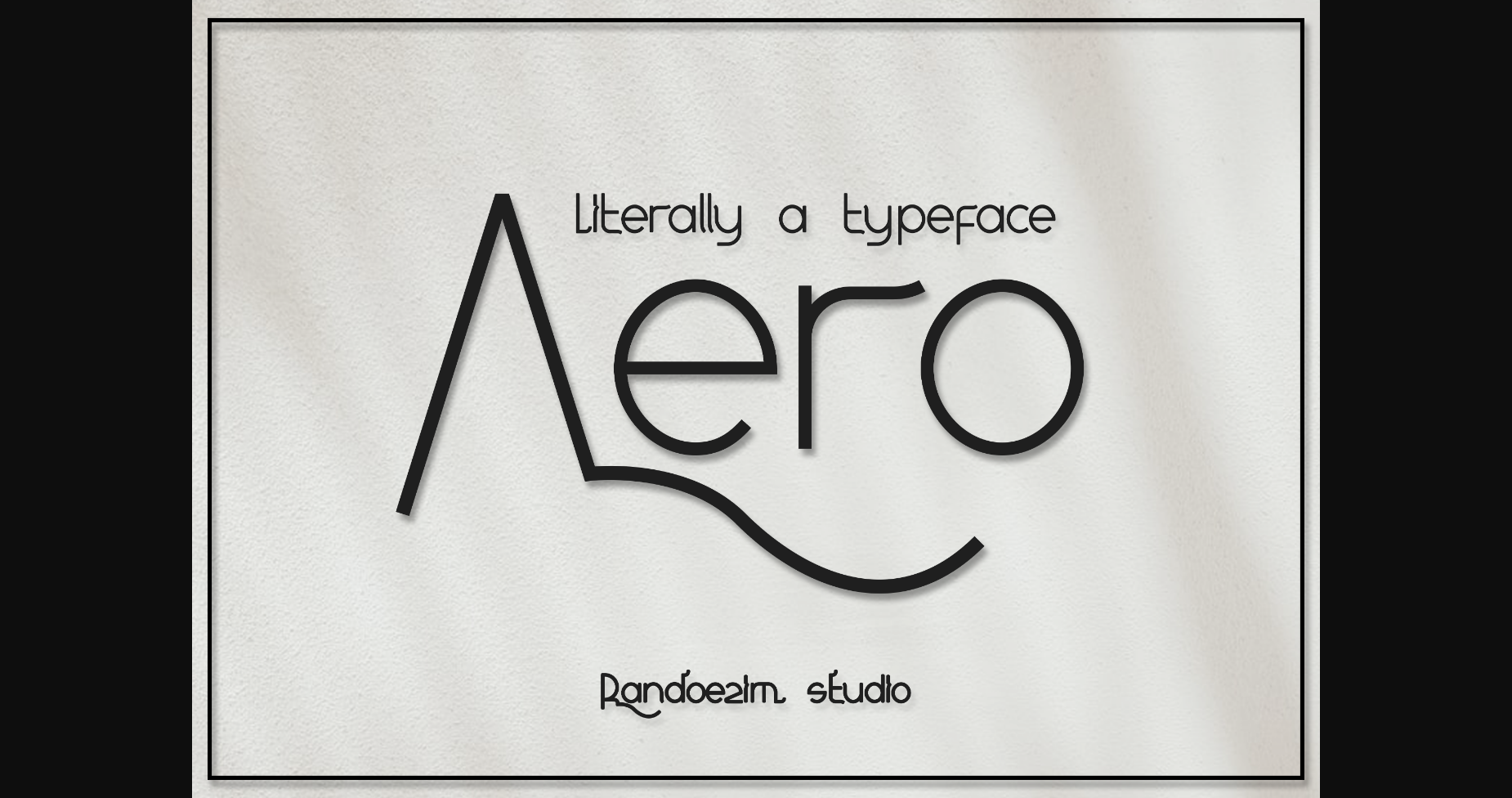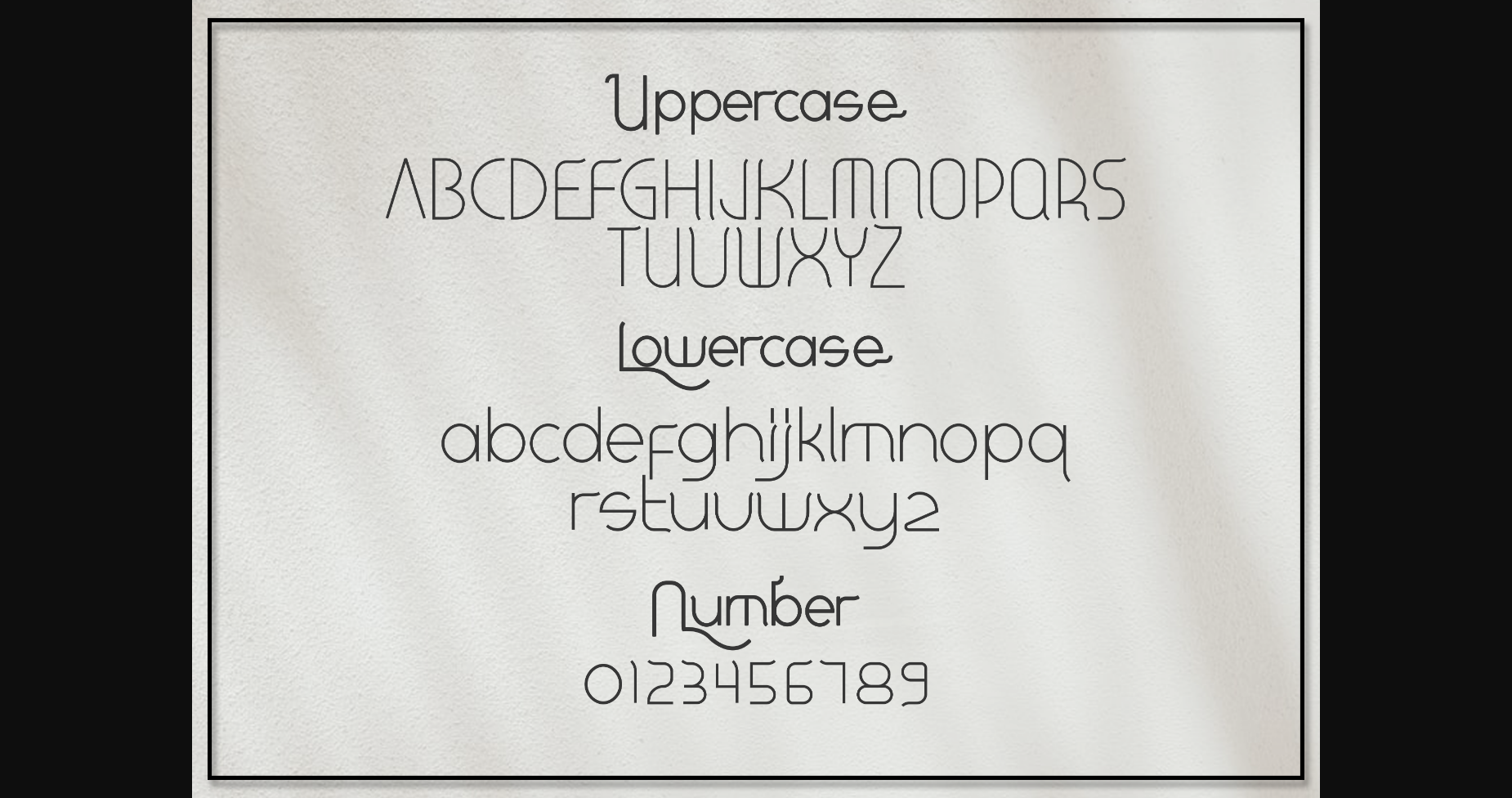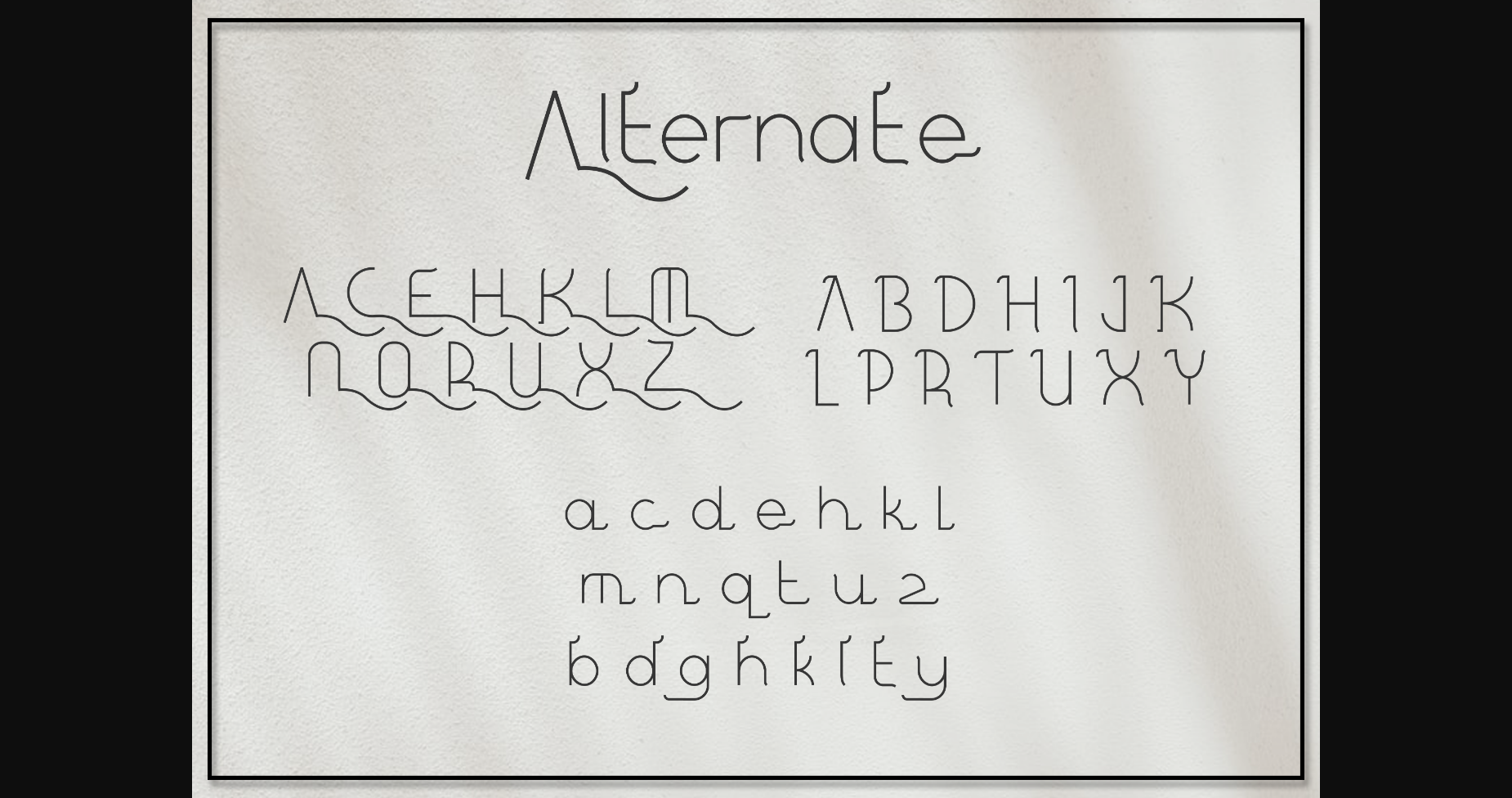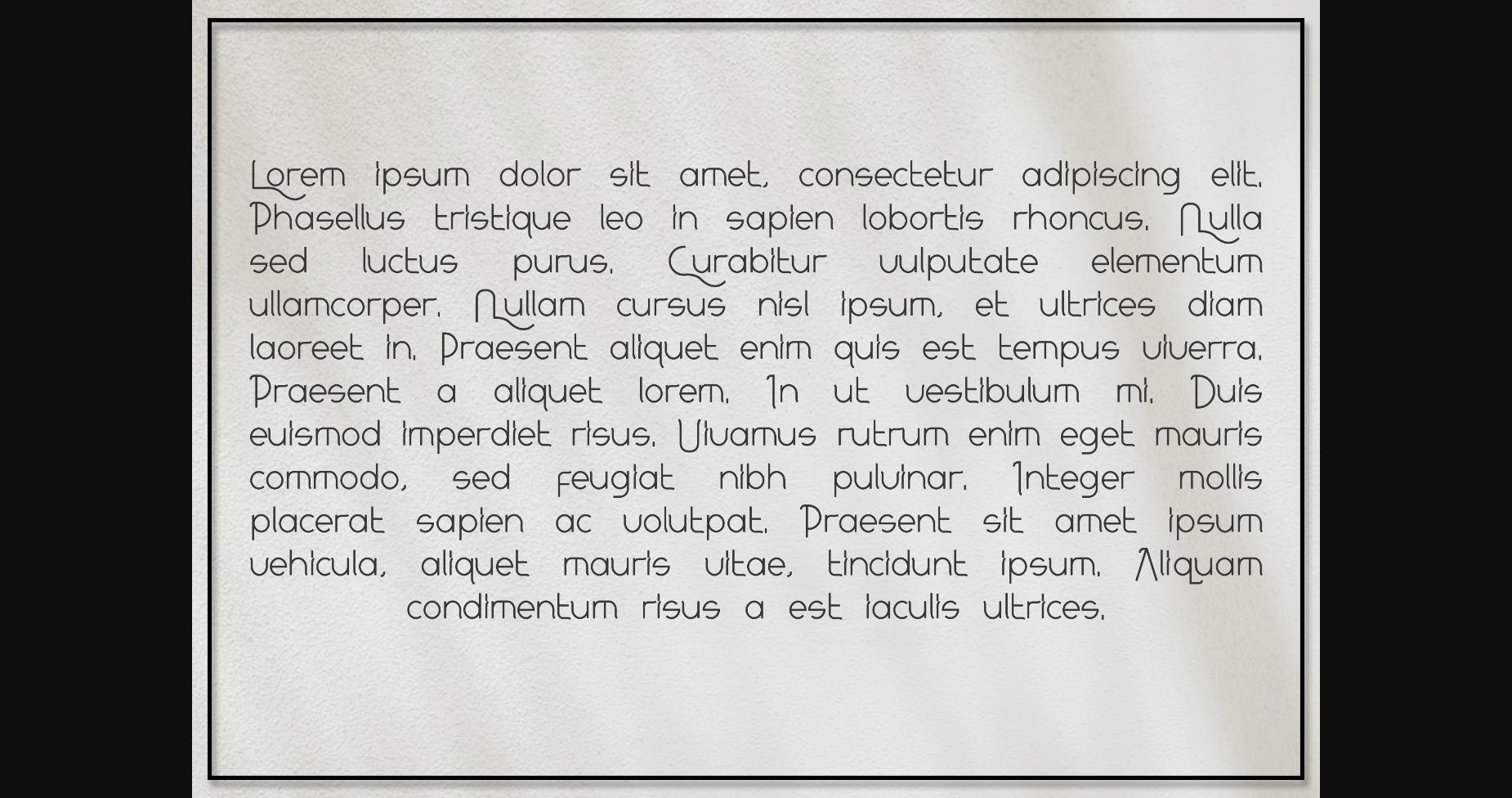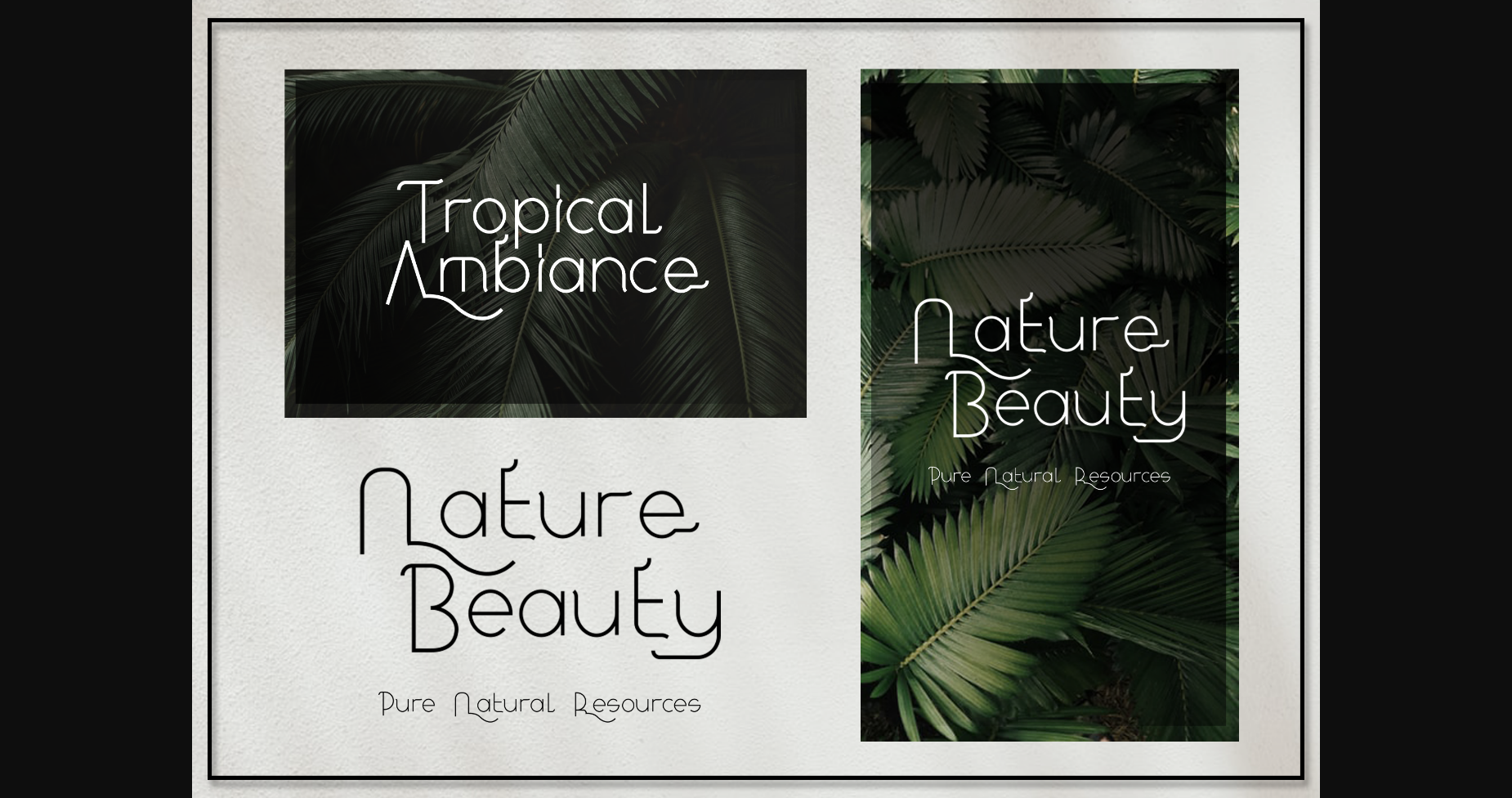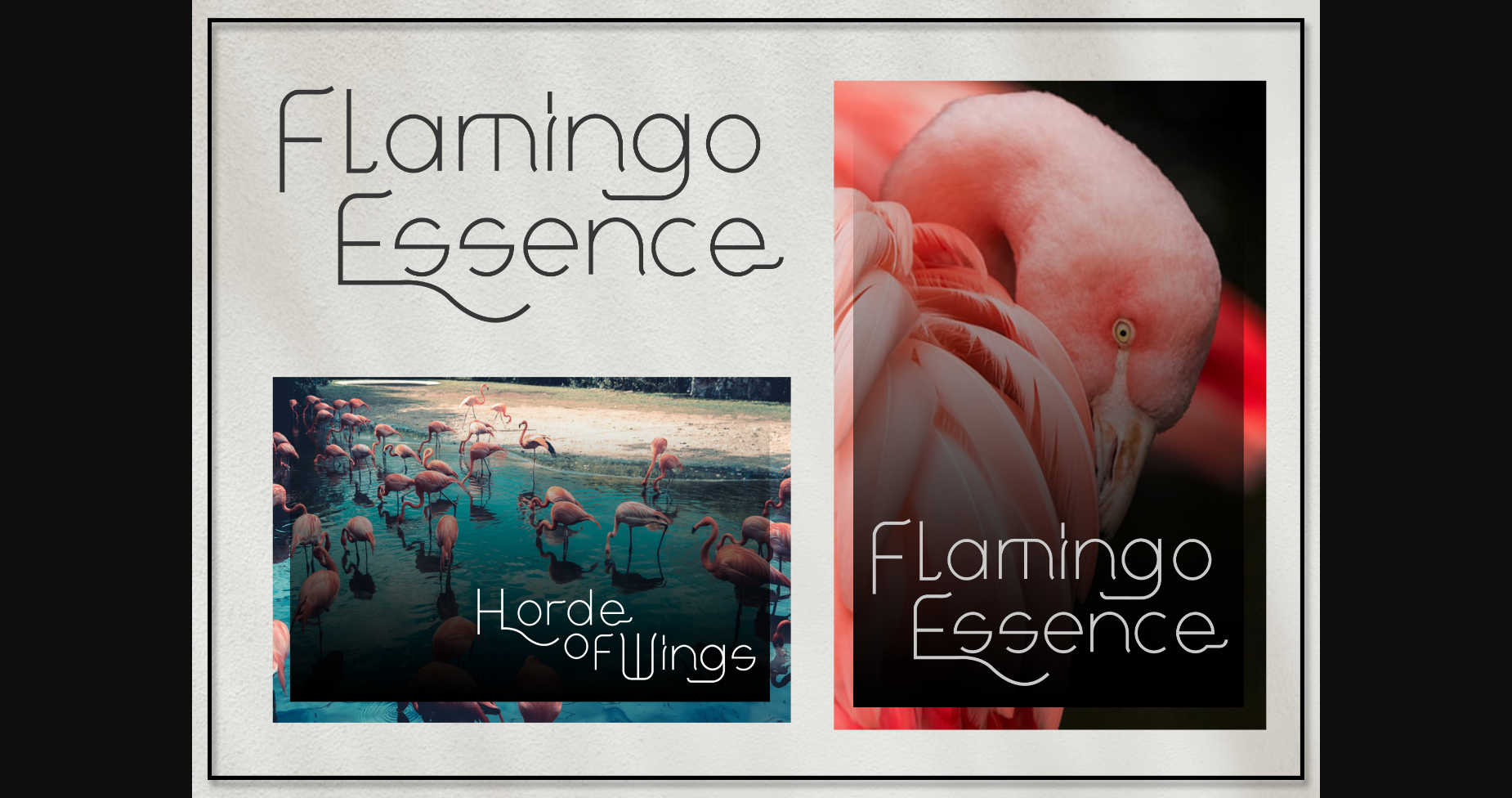
Aero Font
About Aero Font
Aero is an elegant and thin lettered sans serif font. It is PUA encoded which means you can access all of the glyphs and swashes with ease! Add it confidently to your projects, and you will love the results.